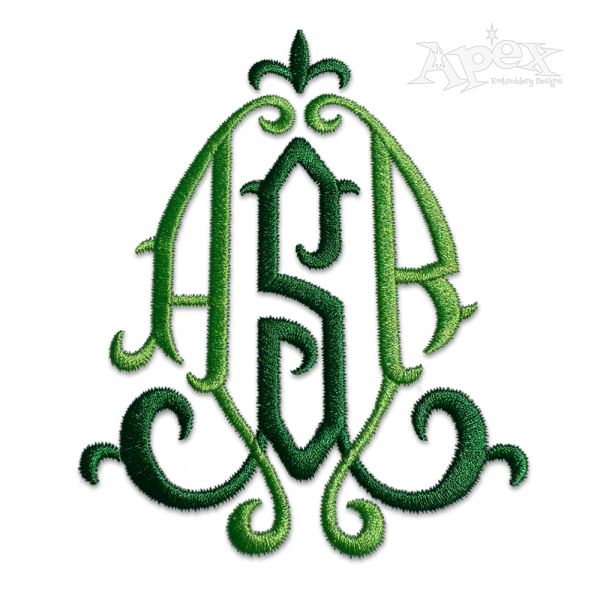
Fleur Monogram Embroidery Font
Historic French ironwork meets regal architectural grace in the Fleur Monogram embroidery font. Conceived for bespoke heirloom embroidery, this intricate three-letter composition frames a tall, dignified center initial within undulating scrollwork and sculptural fleur-de-lis finials. As needle meets fabric, every rhythmic pass creates a luminous relief, turning everyday woven goods into noble, tailored treasures evocative of private European estates and romantic vintage salons.
Project Ideas for Fleur Monogram
Infuse classic distinction into everyday textiles and boutique commissions with bespoke custom monogramming:
- Bridal Robes & Wedding Keepsakes: Stitch opulent three-letter crests onto silk dressing gowns, velvet ring cushions, and bridal party wraps.
- Luxury Table Linens: Elevate entertaining with crisp heraldic monograms embroidered across hemstitched dinner napkins, cocktail squares, and table runners.
- Heirloom Bedding: Transform Egyptian cotton duvet covers, euro shams, and crisp percale top sheets into personalized master suite statements.
- Bespoke Resort Wear: Accent breezy linen button-downs, plush terry cabana towels, and poolside totes with refined nautical or botanical tones.
- Canvas Totes & Personalized Gifting: Personalize structured weekender bags, cosmetic cases, and travel accessories for milestone gifts that endure for decades.
- Corner Diagonal: Angle 45 degrees into corner margins on dinner napkins and cocktail linens, setting motifs 1.5 to 2 inches from edges.
- Center Chest: Align boldly over chest pockets on tailored dressing shirts, spa robes, and bridal loungewear.
- Cuff & Hem: Feature smaller renditions along shirt cuffs, sleeve bands, or skirt plackets for subtle couture detailing.
- Center Field: Float expansive, dramatic crests in the center of decorative throw pillows or across duvet headers.
Fleur Monogram Craft & Letterform Details
Digitized with uncompromising precision, this satin stitch alphabet balances fluid aesthetic curves with robust structural underlay. Each flanking character sweeps gracefully upward to envelop the focal initial, engineered with careful inclination angles to prevent overlapping bulk while sustaining fluid luster. Calibrated pull compensation preserves the crisp, tapered tips of every fleur-de-lis terminal across diverse textiles, ensuring flawless execution whether stitched in tonal silk or high-sheen polyester.